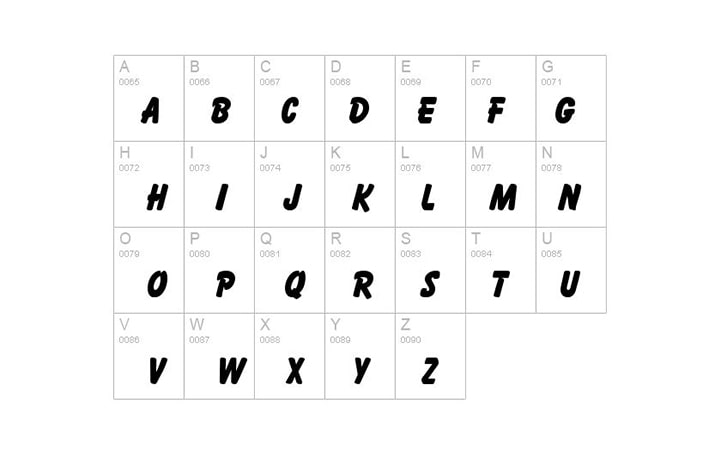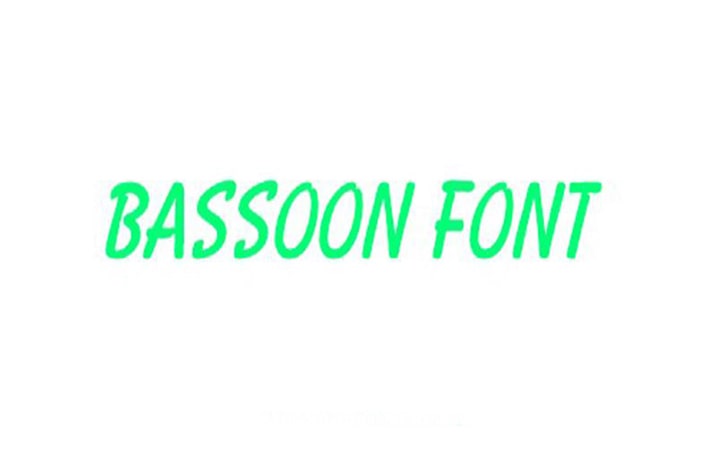
Bassoon Font is a clean, neat handwriting typeface that has a feminine feel with nice rounded edges and curves. It is perfect for adding a personalized touch to your project.
Due to her sexist appearance, she gained immense fame within two or three months. Thus, if you are looking for a typeface that suits a stylish design, then this trendy font is perfect for you.
Along these lines, it stands out among the best typefaces available in the market. Additionally, interest in the typeface industry is booming.
With wide language support as well as sweet features, this modern typeface can be used for a variety of projects. For example, branding, banners, movie posters, banner ads, video titling, logos, brochure layouts, banners, video titling, and more.
Further, it has a complete set of glyphs with 191 characters and 4096 units per em. Max advance height & max advance width is according to 3727 & 4297.